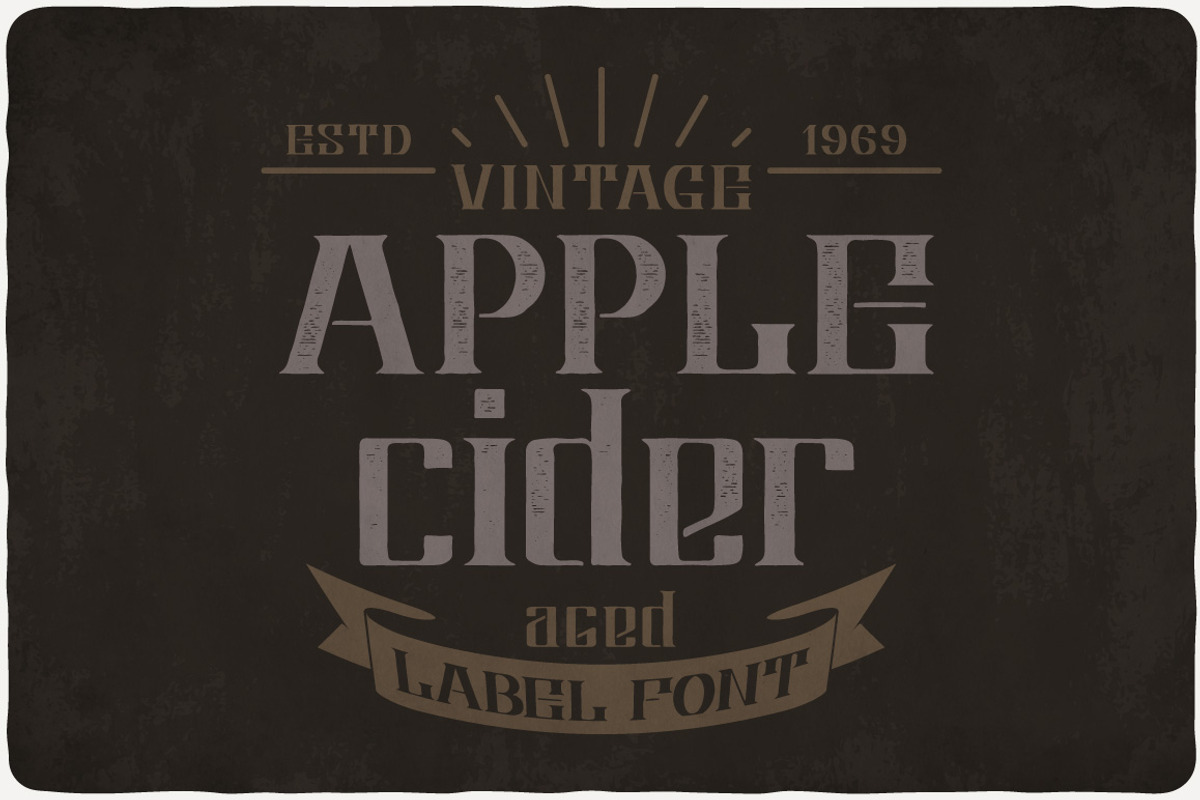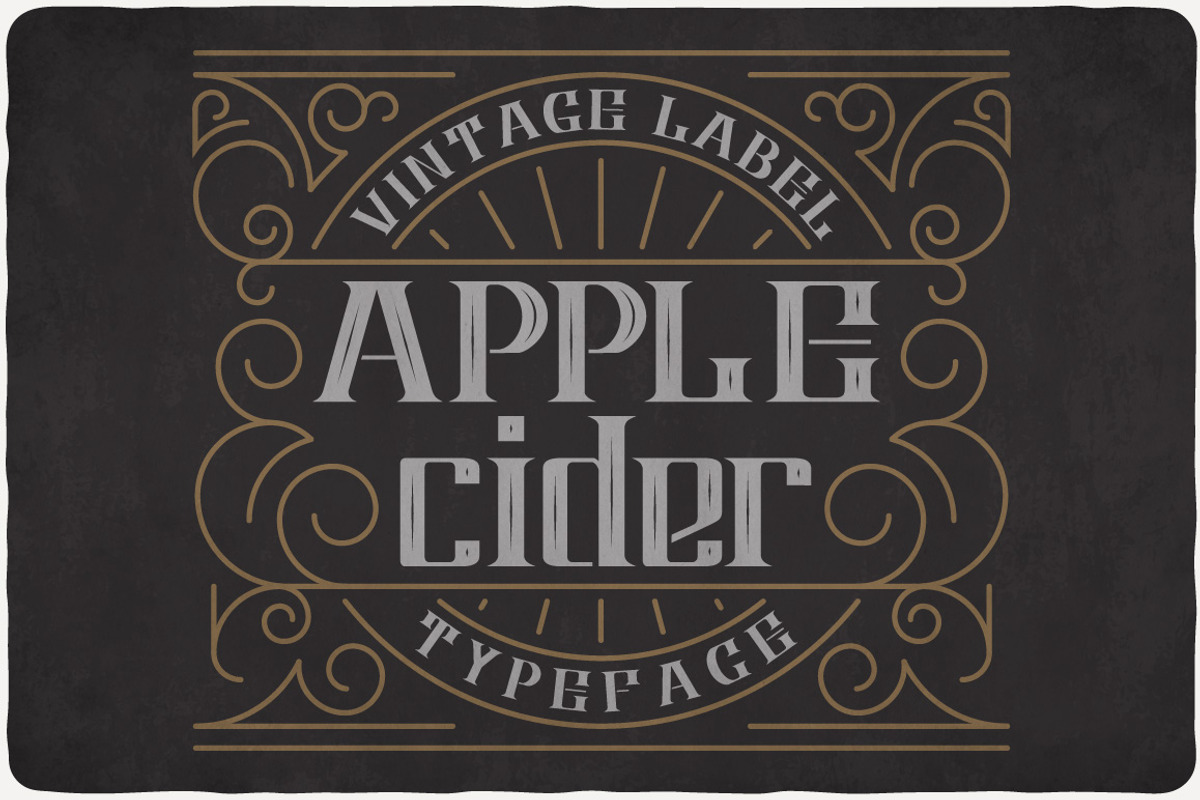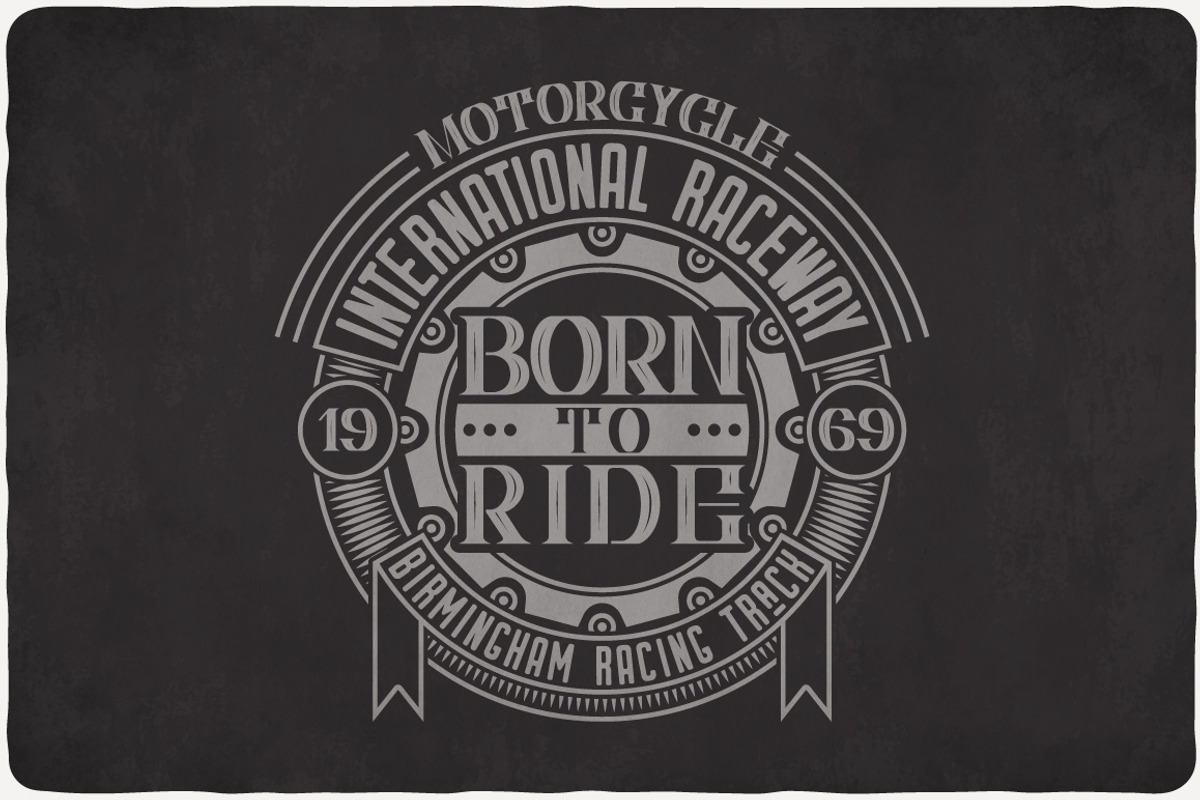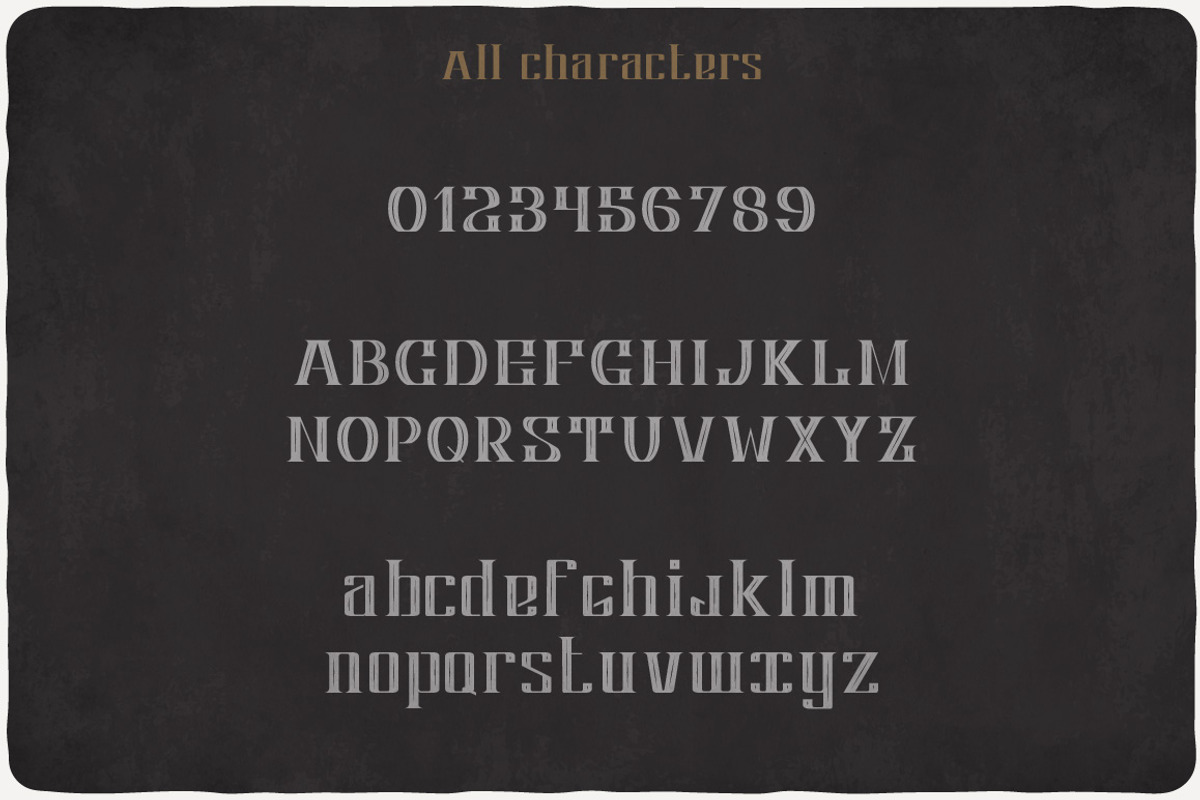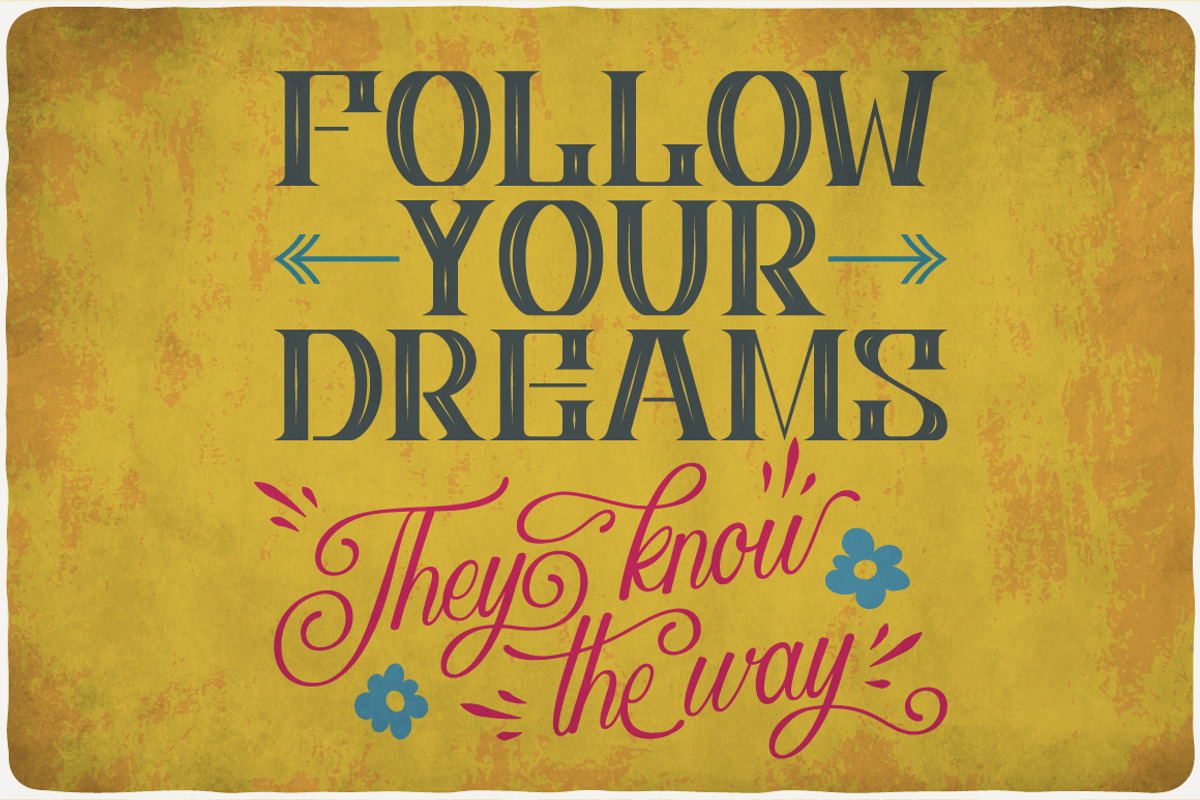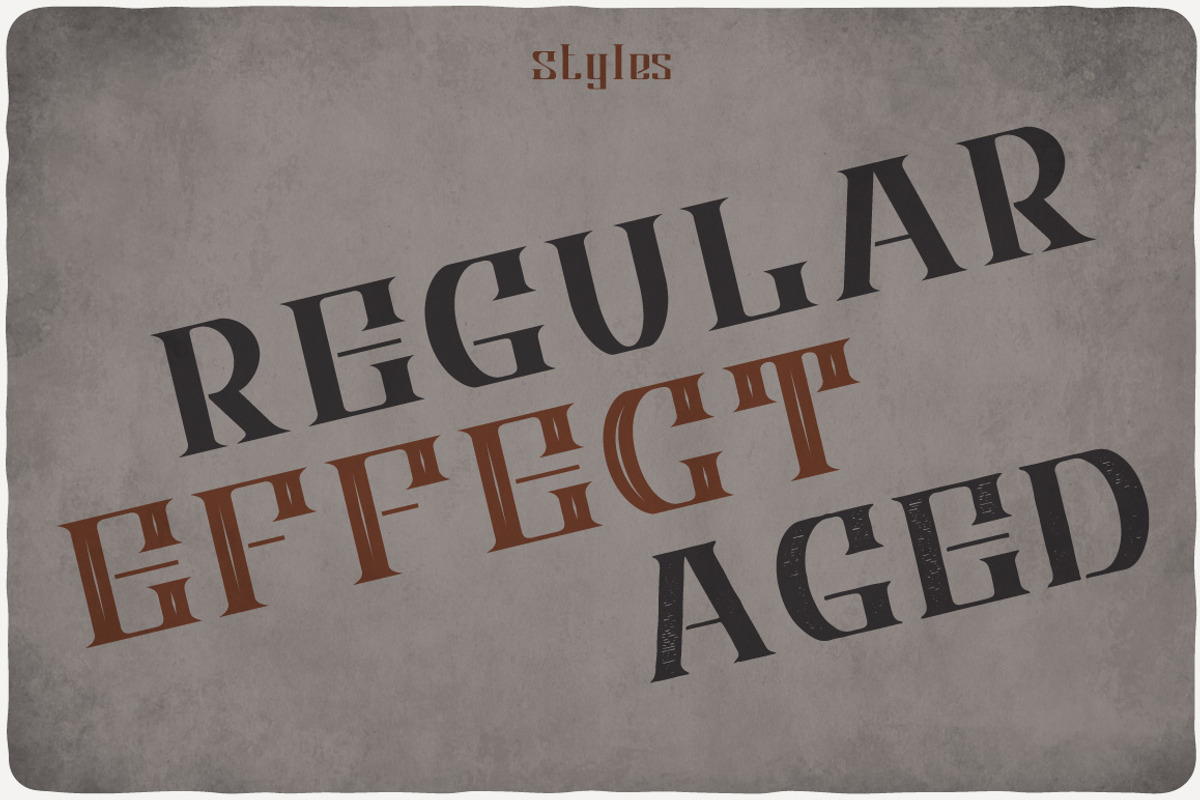
Apple Cider Typeface
Introducing a vintage look label typeface named "Apple Cider". It's made in strong and vintage label style. Typeface is good viewed on any label design.
- Apple Cider Regular
- Apple Cider Aged
- Apple Cider Effect
Apple Cider Typeface by VozzyStock fits naturally into Branding, posters, packaging, typography.